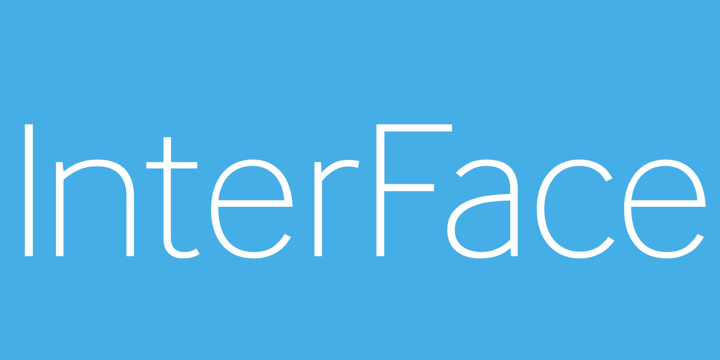
InterFace is a font created by Bruno Maag and published by Dalton Maag. The design of this typeface is influenced by the sans serif fonts of the late 19th Century.
Foundry: Dalton Maag